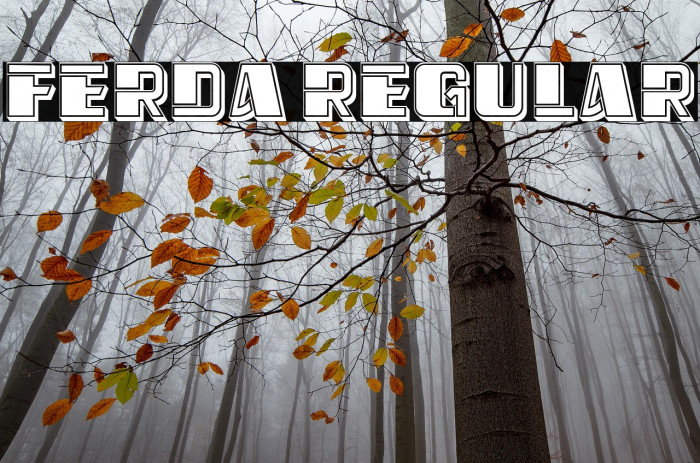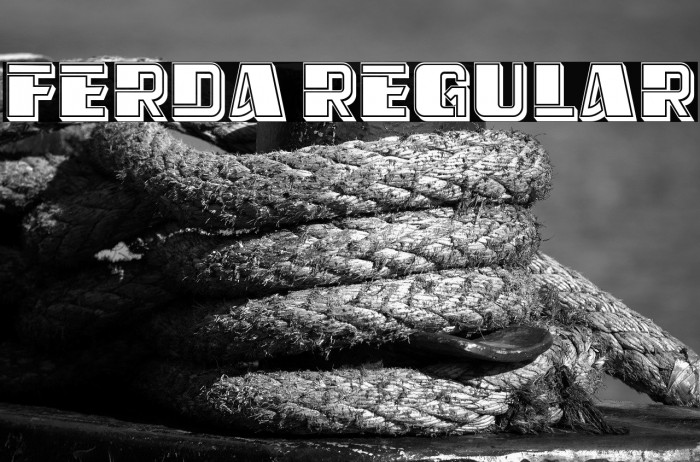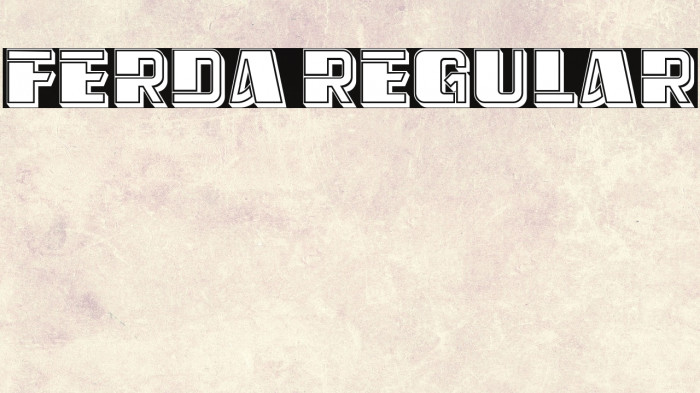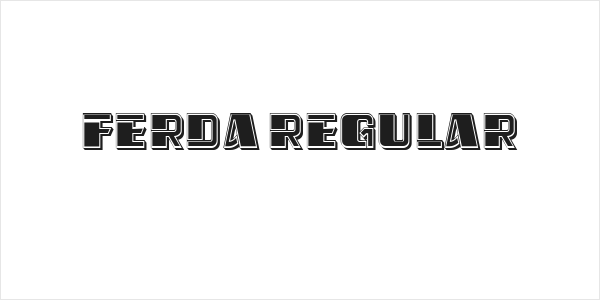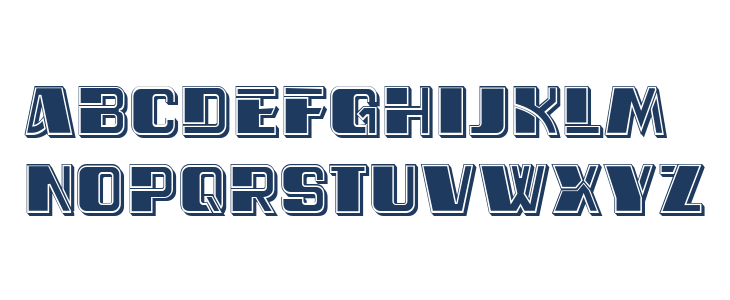
Ferda Regular Font
Ferda Regular Description
This font features a bold, geometric design with a distinct three-dimensional effect. The letters are constructed with thick, solid strokes and are outlined to create a shadow-like appearance, giving them depth and a sense of movement. The style is modern and dynamic, making it suitable for eye-catching designs. The uppercase letters are uniform in height, with consistent spacing that maintains readability while adding a touch of sophistication. The font's unique structure makes it ideal for creating impactful headlines and titles.